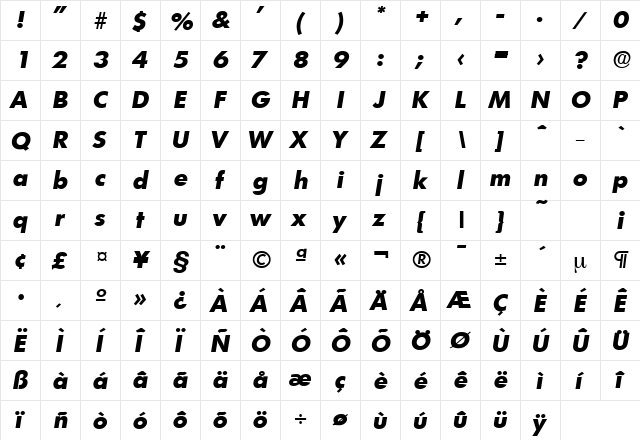
Limerick-Serial-ExtraBold RegularItalic
Design Context for Limerick-Serial-ExtraBold Typeface
Limerick-Serial-ExtraBold is a composed and adaptable typeface that performs quietly and consistently across a wide range of design contexts. Its italic angle brings a sense of urgency and motion to the letterforms. Its bold stroke weight gives it real presence on the page.
Pro Tip: Use Limerick-Serial-ExtraBold for emphasis, pull quotes, and subheadings where its slanted energy can add rhythm to the layout.